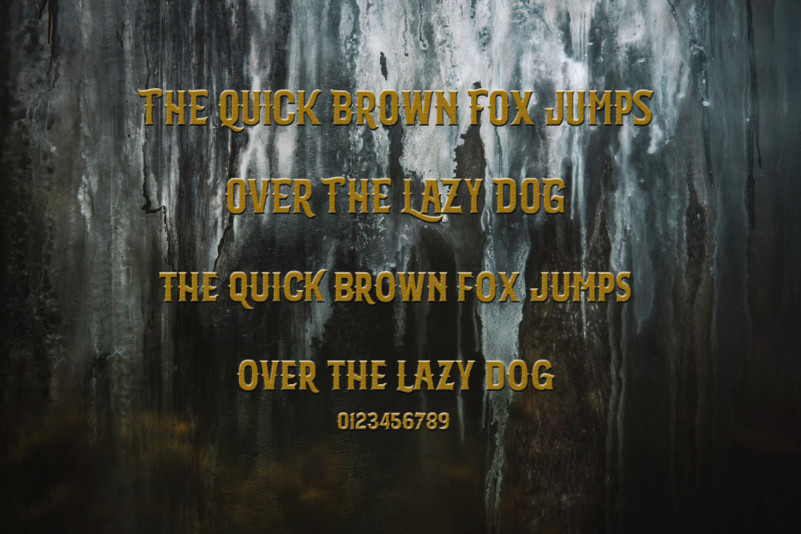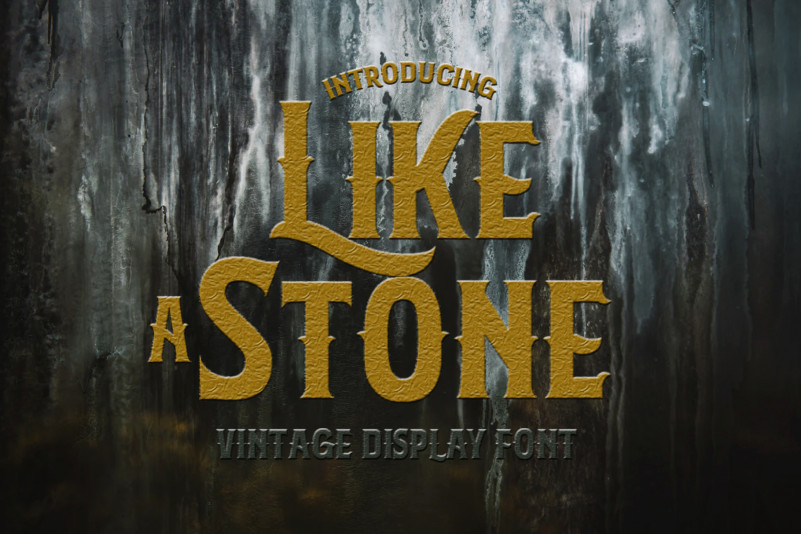
LikeAStone Vintage Font
Hello, LikeAStone Vintage Font is a font from Sheillatype, this font is inspired by vintage letters, victorian era, masculine character, cool thick, and highly recommended for t shirt designs, logos, classic or vintage posters, and others. do not hesitate to provide support with comments, and if you have questions about our font. contact us via email. thanks .